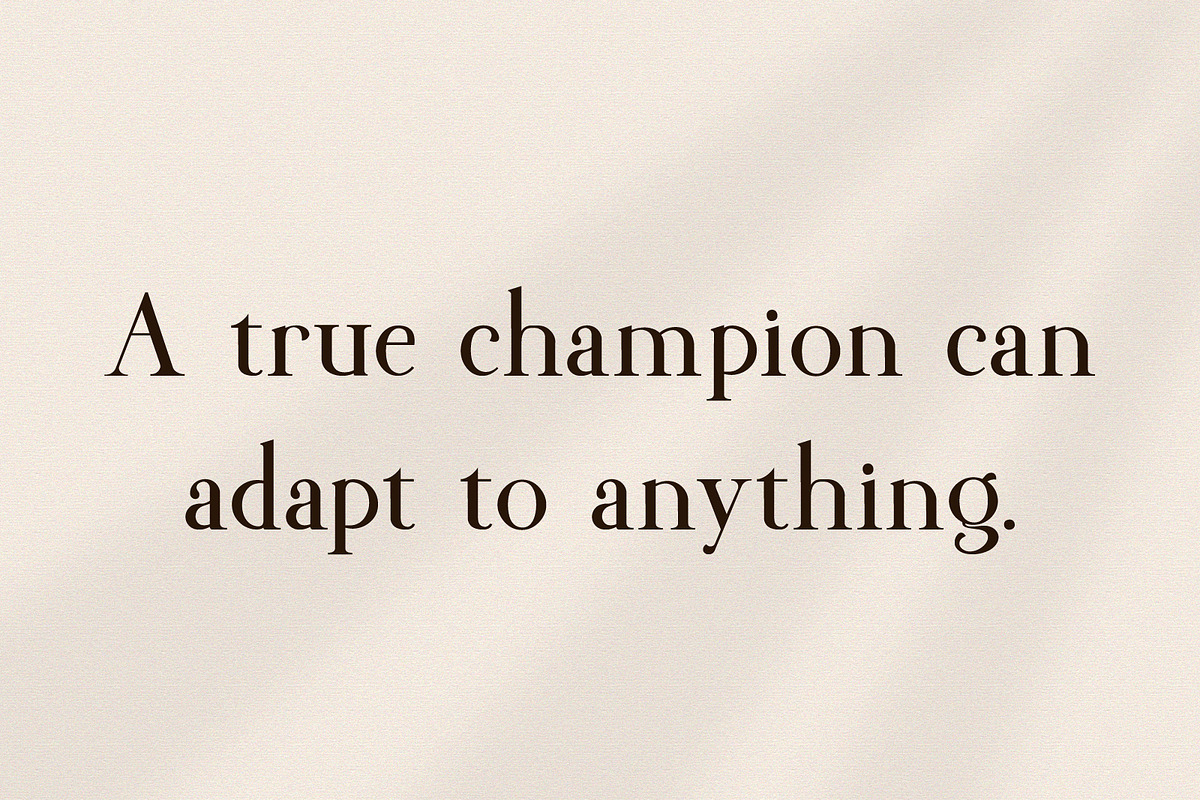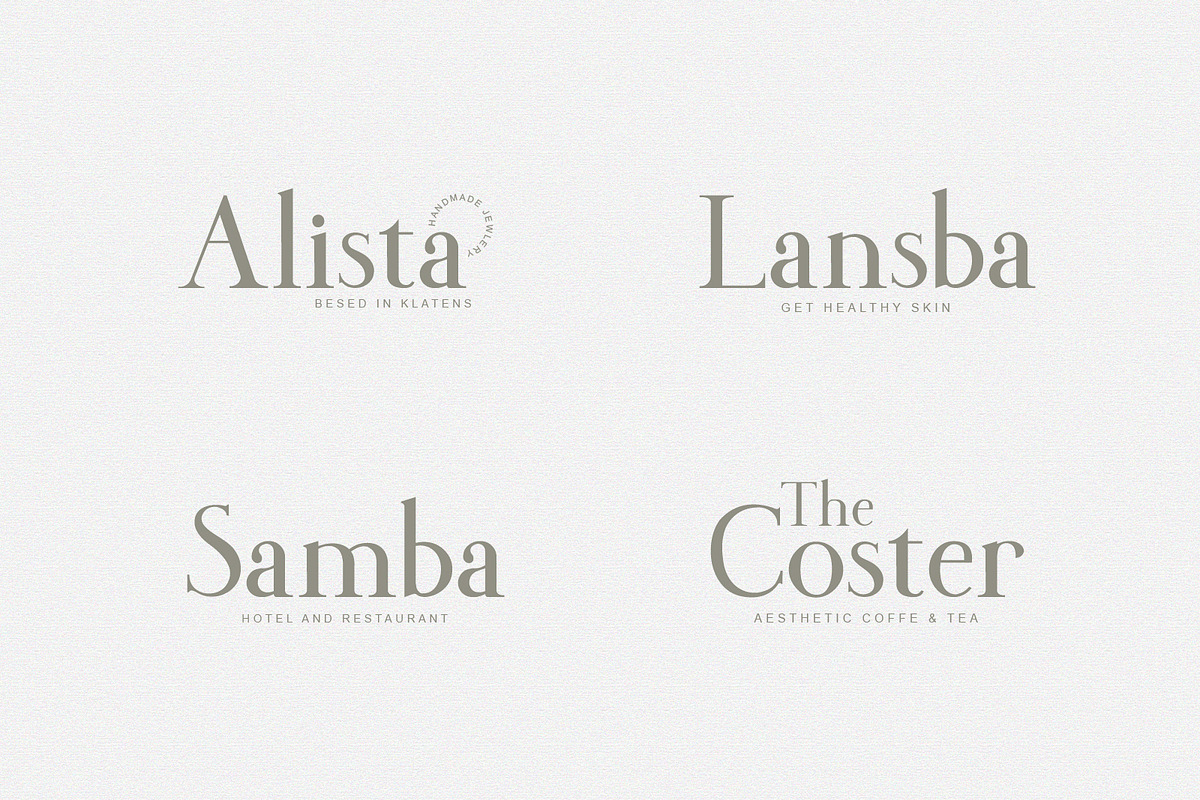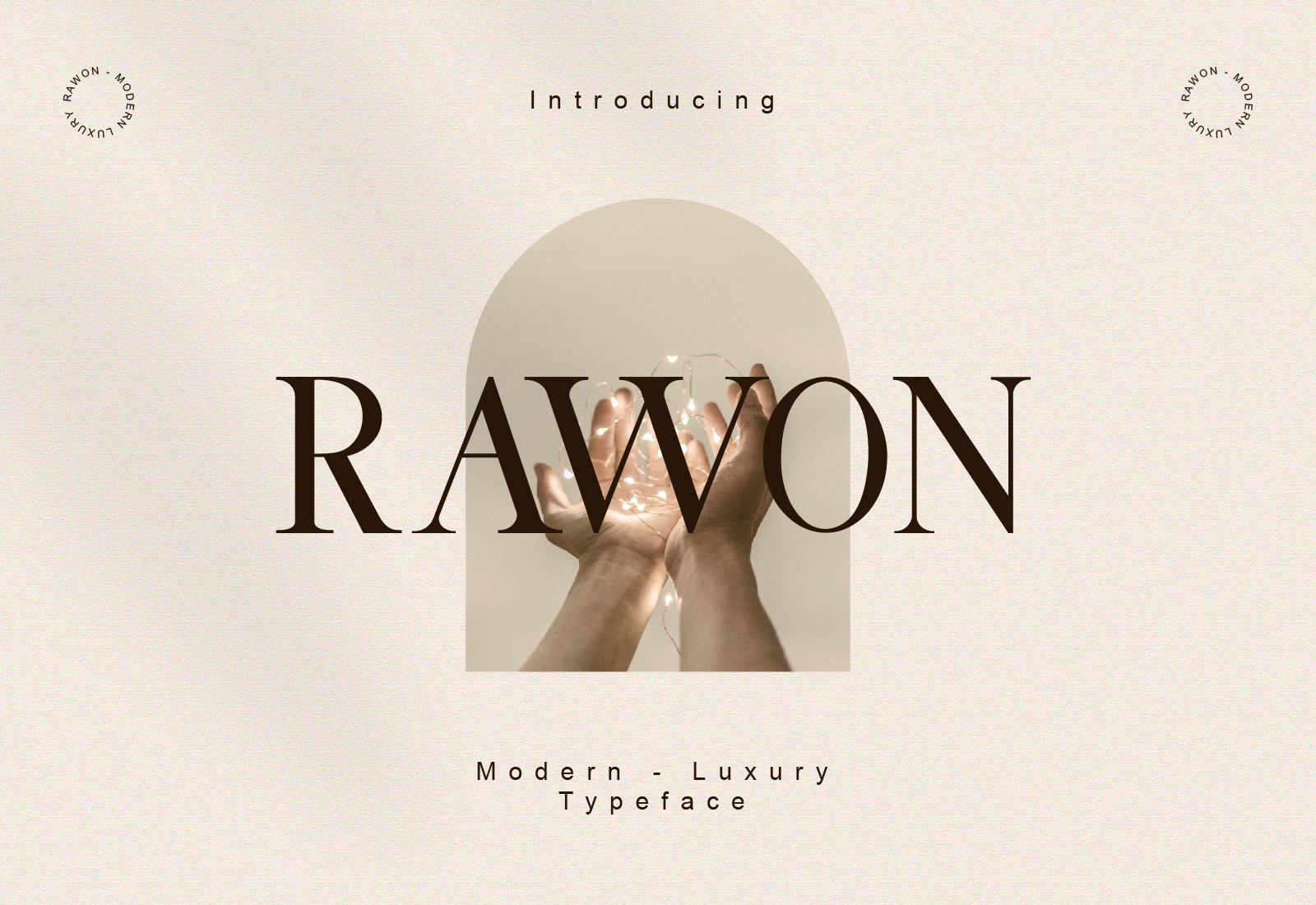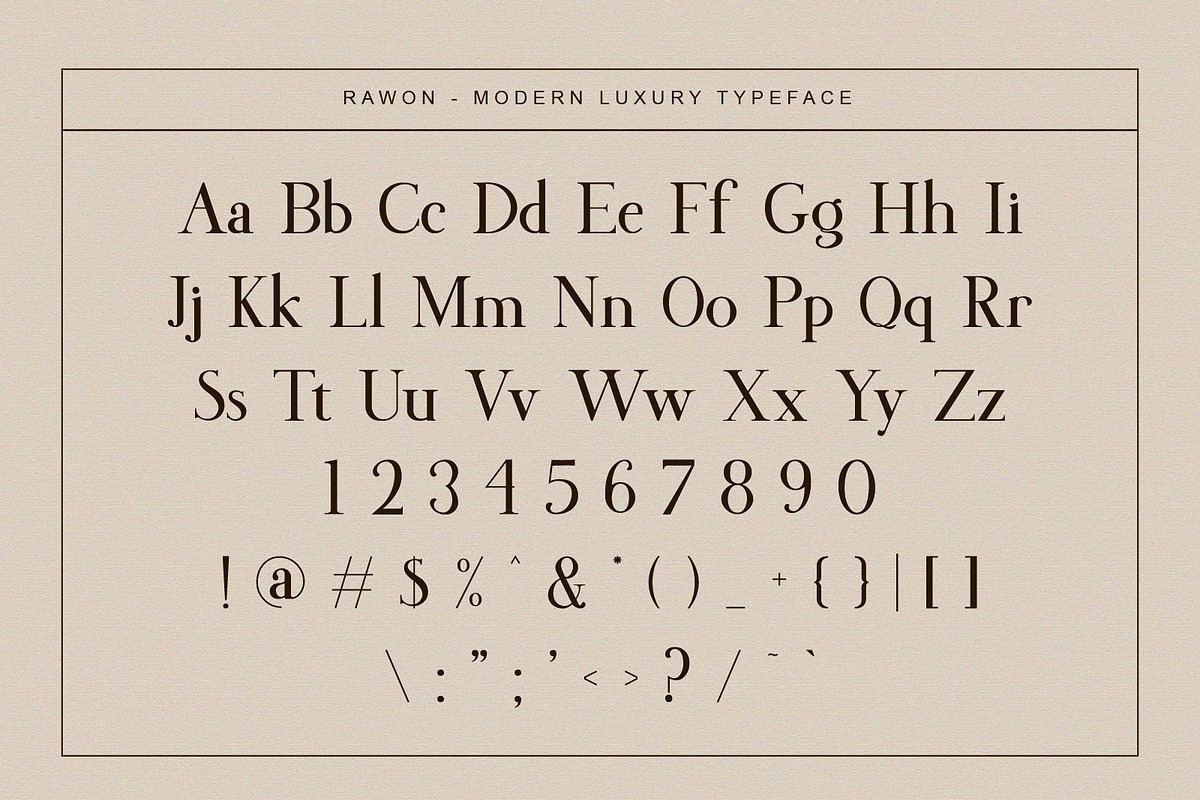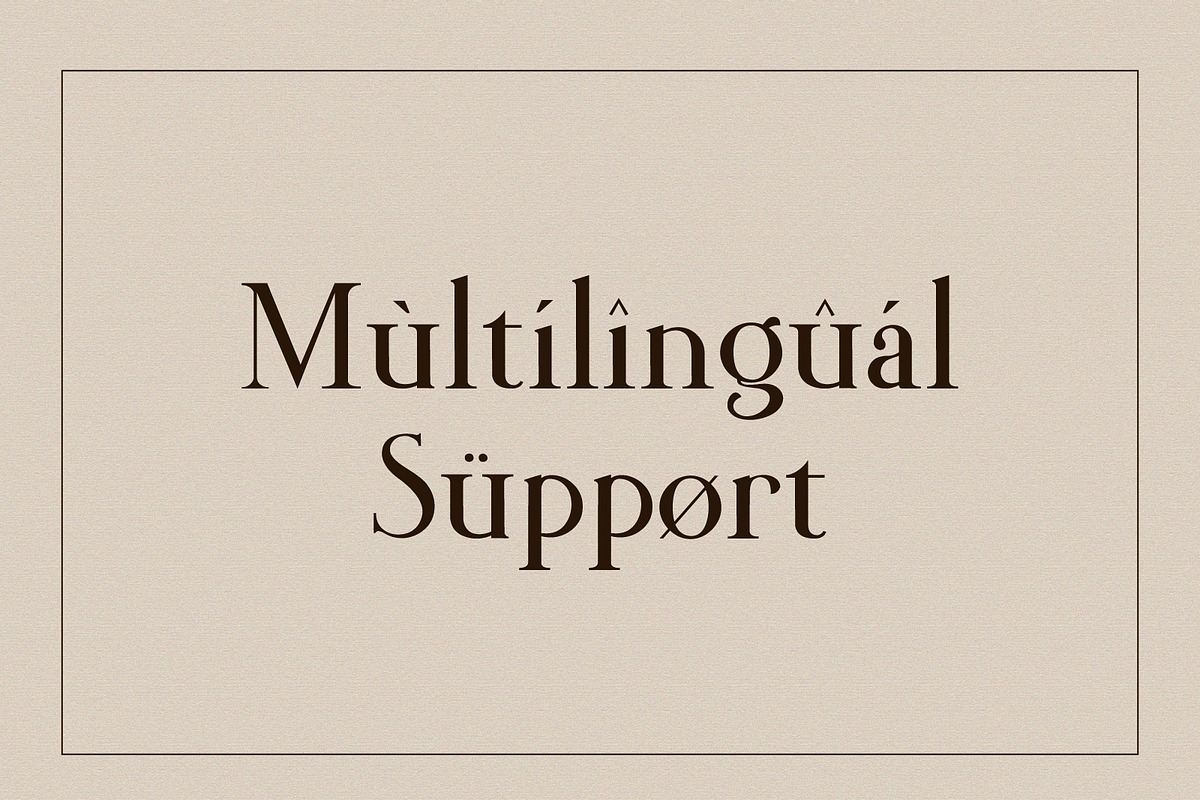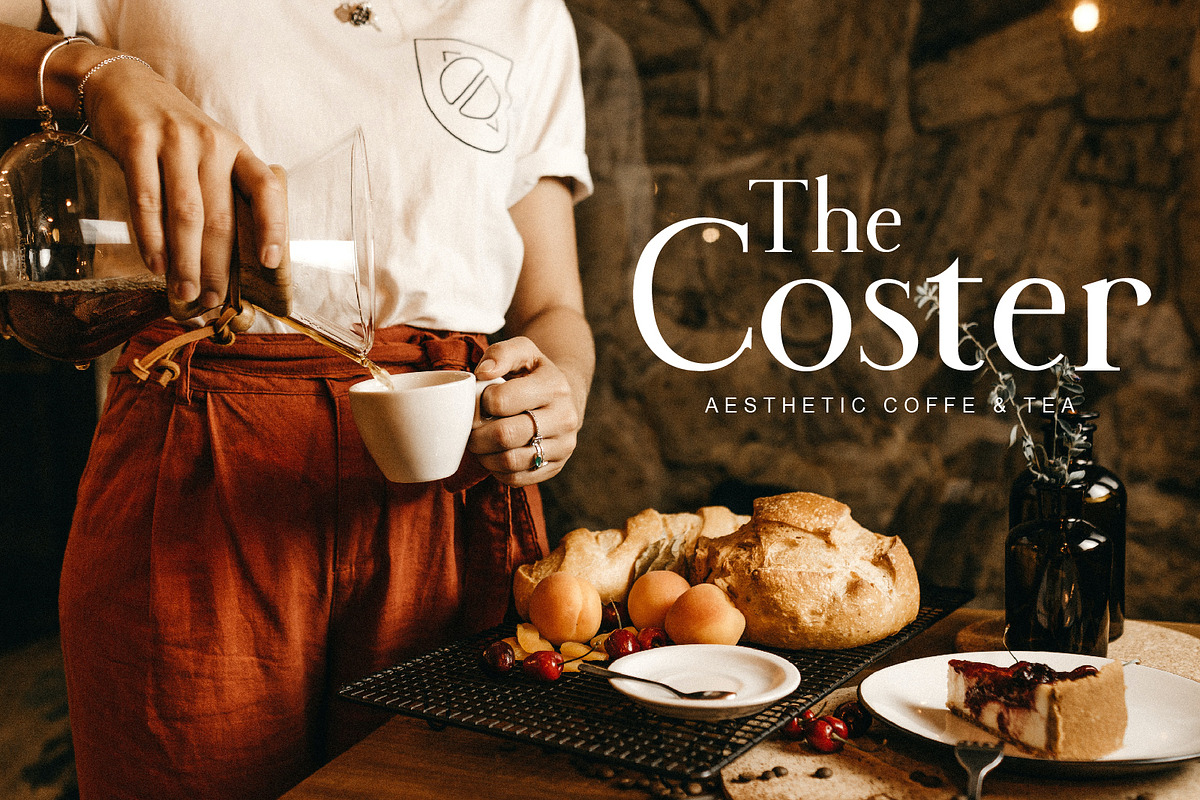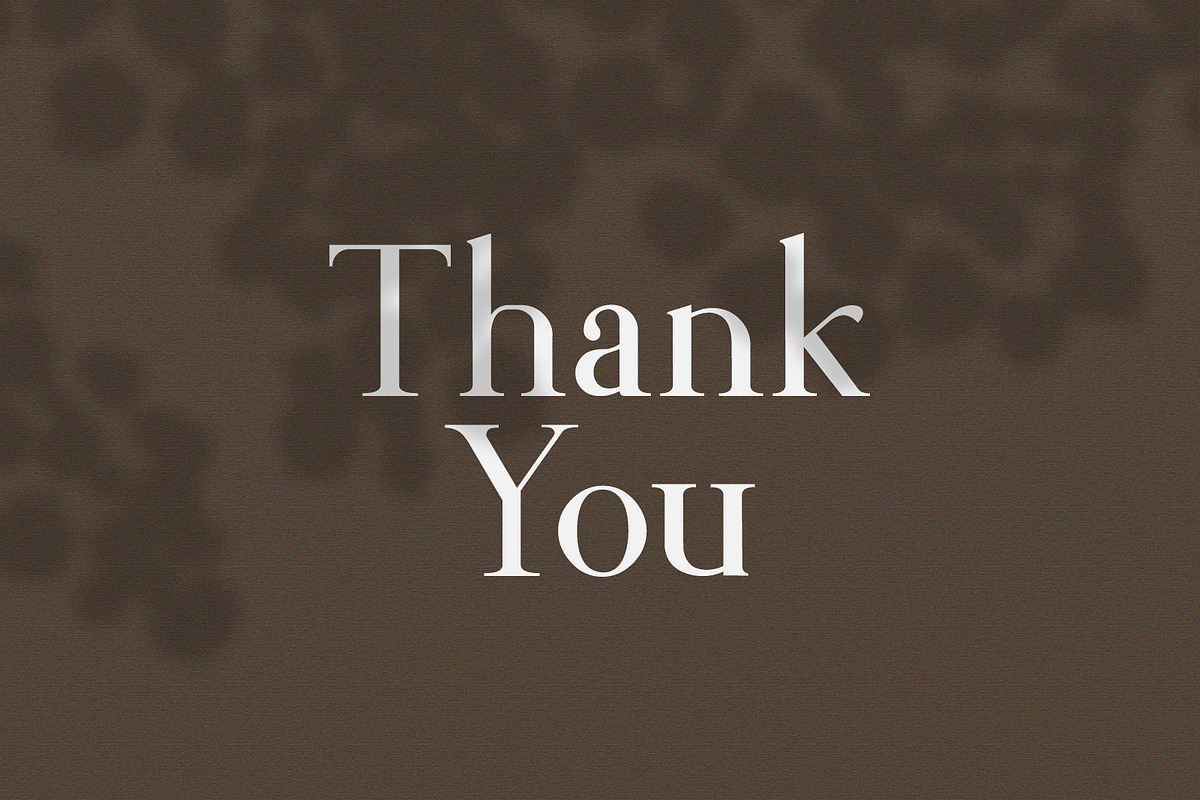
Rawon | Luxurious Serif Font
Rawon is a modern and luxurious serif font. It can be used for various purposes such as logos, wedding invitations, headings, t-shirts, letterhead, signage, labels, news, posters, badges and so much more.